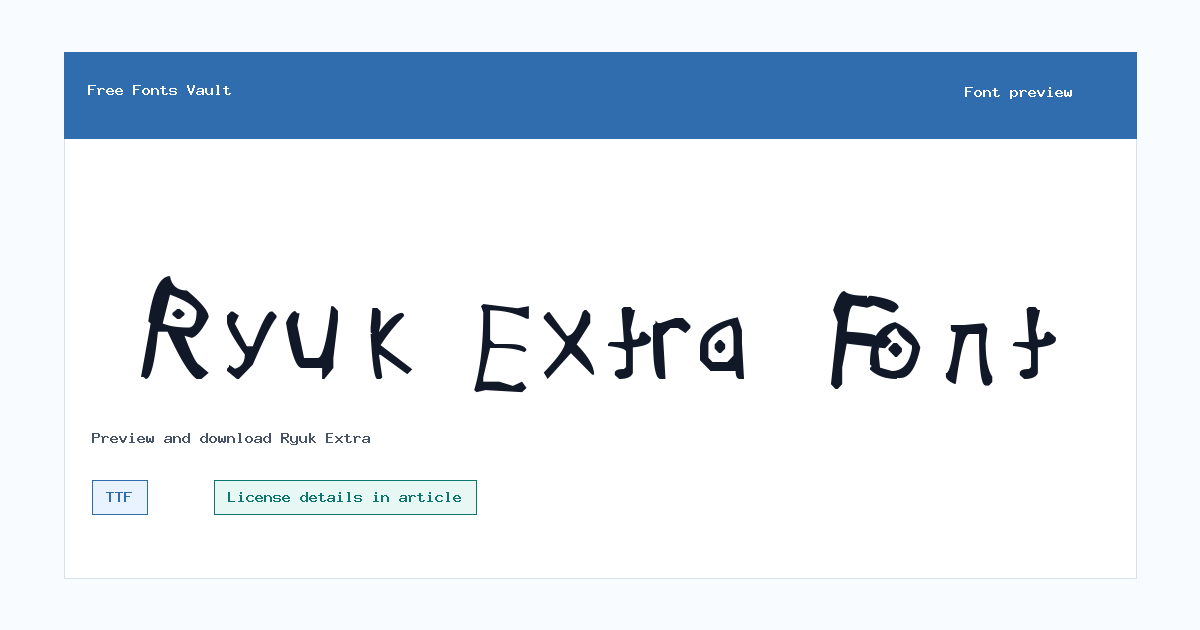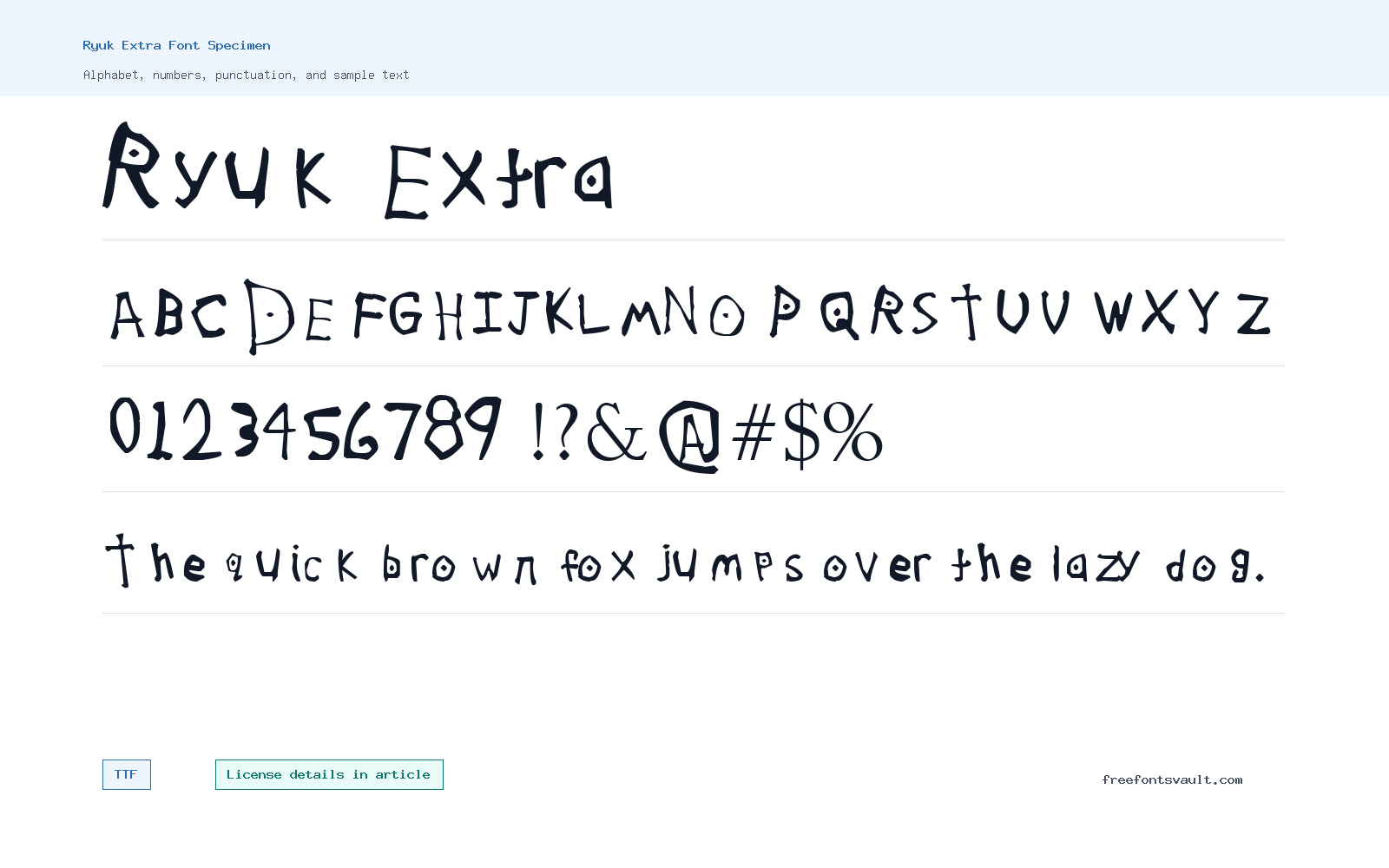
Ryuk Extra
Ryuk Extra font.
Ryuk Extra is a decorative TrueType display font by High-Logic, suited to horror, comic, graffiti, game-style, poster, thumbnail, and themed heading designs.
About Ryuk Extra
Ryuk Extra is listed as a regular 400-weight TTF font, but its personality is much more expressive than a neutral text face. Font indexes group it with decorative, graffiti, handwritten, unusual, scratched, horror, comic, and foreign-look styles, so it works best when mood matters more than quiet readability.
Use it for short words and phrases: poster titles, Halloween-style graphics, game headings, comic panels, stickers, social images, YouTube thumbnails, and rough logo mockups. It is not a good fit for long paragraphs, dense menus, or small labels where every letter must be read quickly.
- Decorative display direction with horror, comic, graffiti, scratched, and unusual associations
- External previews show Latin letters, numbers, punctuation, and Cyrillic samples
- Best for large-size titles and short expressive phrases
- Poster titles, event graphics, and themed display text
- Horror, comic, graffiti, game, or Halloween-inspired headings
- YouTube thumbnails, stickers, social graphics, and short logo mockups
- Large decorative words where mood is more important than paragraph readability
Use Ryuk Extra sparingly and keep the text short. Try it at large sizes first, check spacing between letters, and pair it with a plain sans serif or serif for supporting text so the design stays readable.
What kind of font is Ryuk Extra?
It is a decorative display font in TTF format, best for short themed headings and graphics.
Does Ryuk Extra support Cyrillic text?
External previews show Cyrillic samples, but you should test your own words before using them in a finished design.
Is Ryuk Extra good for body text?
No. Use it for large titles or short phrases and choose a simpler font for paragraphs and smaller labels.